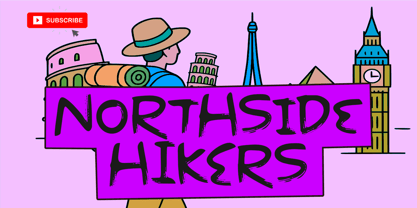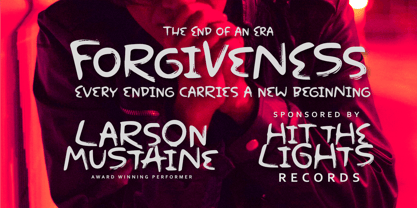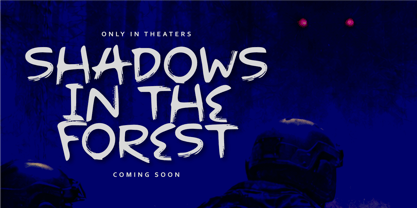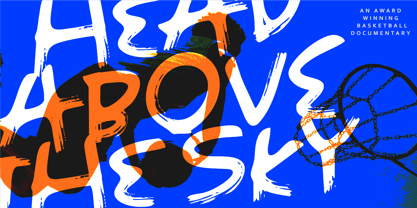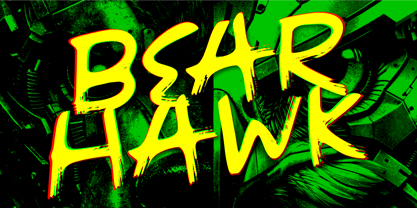
Bearhawk
by Epiclinez
The Bearhawk Font Family was designed by Aldy Sidik and published by Epiclinez. Bearhawk contains 1 styles. More about this family
Bearhawk Brush is a high-energy, adrenaline-charged brush font built for impact. Inspired by wild wilderness grit and unstoppable motion, this typeface explodes with raw strokes, sharp edges, and fearless attitude. Every letter feels hand-painted in a single powerful swipe — bold, aggressive, and alive. Designed for movie posters, extreme sports branding, gaming titles, music covers, streetwear logos, and action-packed campaigns, Bearhawk Brush delivers instant intensity. The dynamic brush texture gives your designs a rugged, cinematic feel while maintaining strong readability. It’s loud. It’s fast. It’s untamed. If you’re creating blockbuster visuals, high-voltage thumbnails, or bold merchandise graphics, Bearhawk Brush brings the roar.